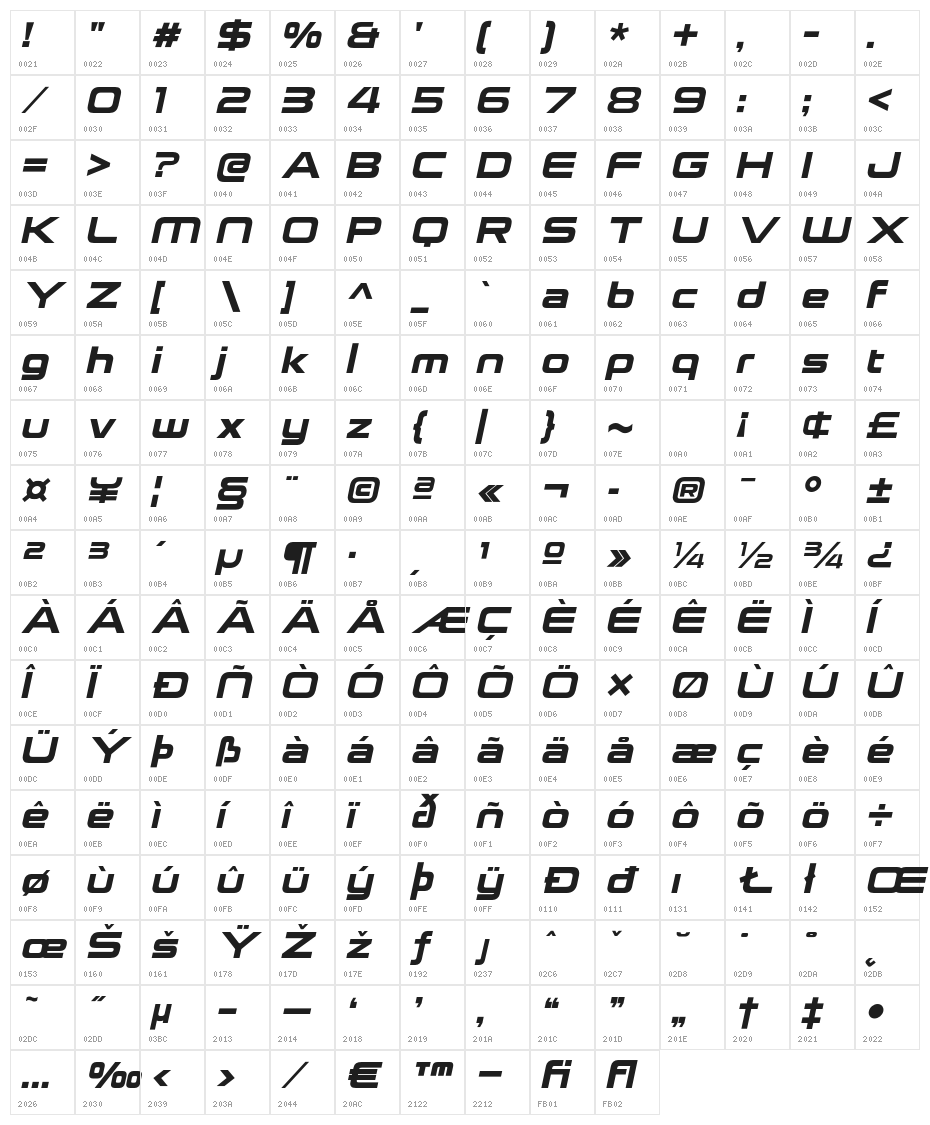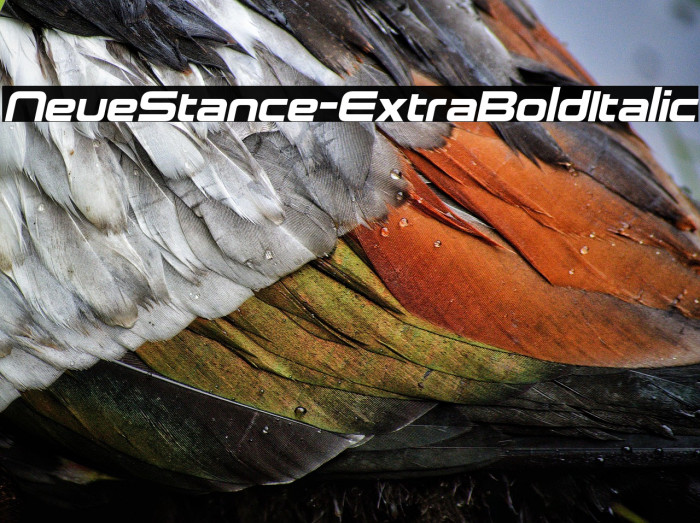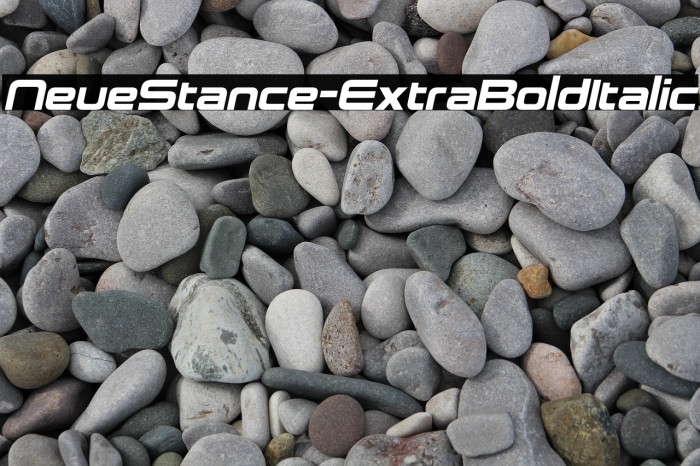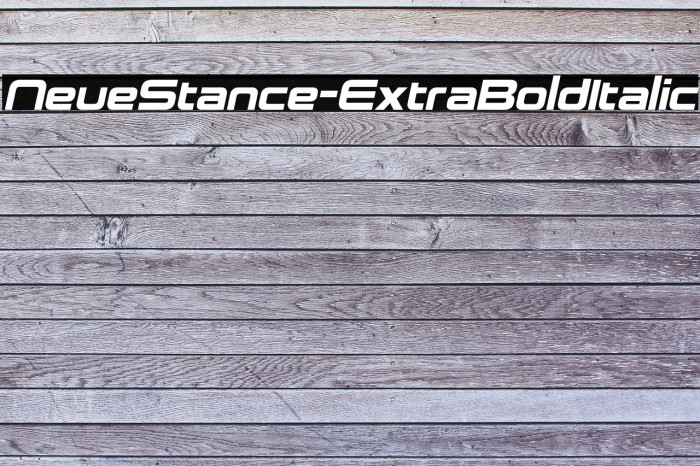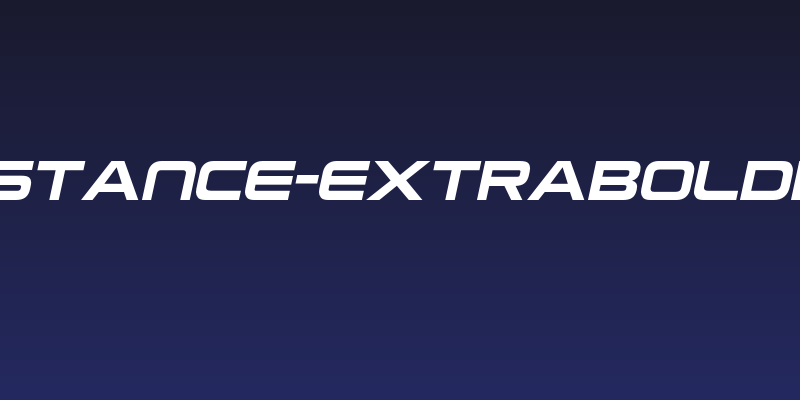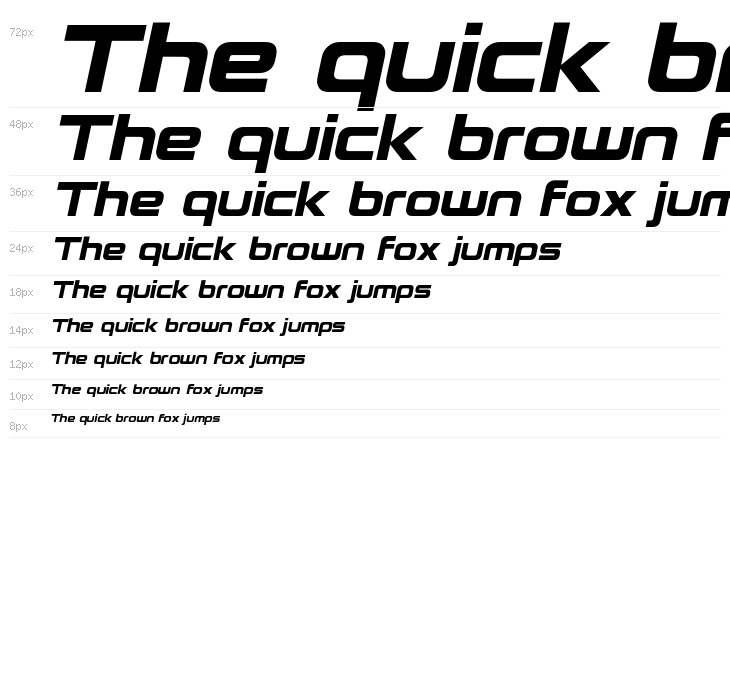
NeueStance-ExtraBoldItalic Font
NeueStance-ExtraBoldItalic Description
This font exudes a modern and dynamic aesthetic with its bold and italicized characters. The angular and sleek design gives it a futuristic feel, making it suitable for contemporary projects. The uppercase and lowercase letters maintain a consistent style, with a slight slant that adds to its energetic appearance. The numerals and special characters are designed to match the overall theme, ensuring uniformity across all text elements. The font's structure is clean and precise, making it highly legible while still retaining a unique character.
| Proposed Projects | Ideal for branding, sports team logos, tech-related designs, and modern advertising campaigns. |